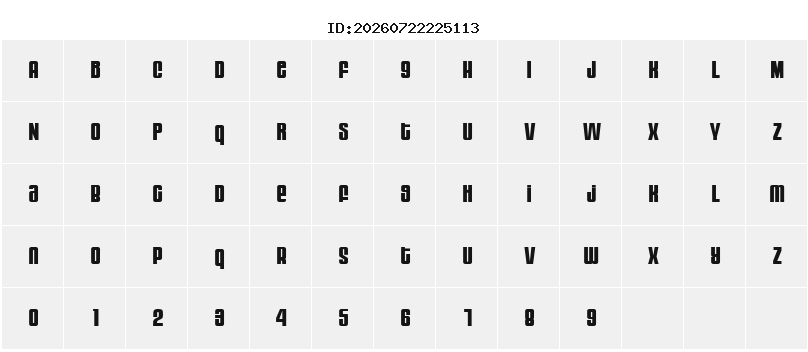
• Font Name: Moog
• Full Font Name: Moog
About Moog.ttf
Moog.ttf is a modern, elegant sans-serif font designed for ultimate readability and visual harmony. Perfect for branding, headlines, web design, and print materials.